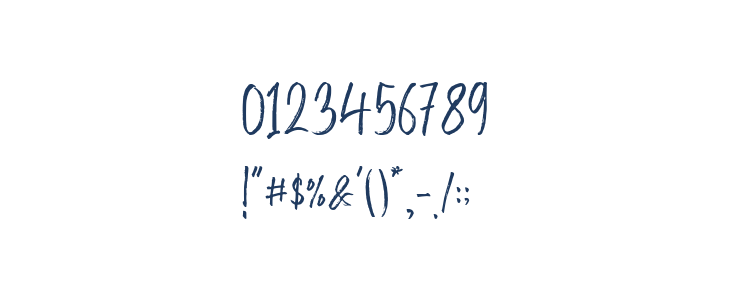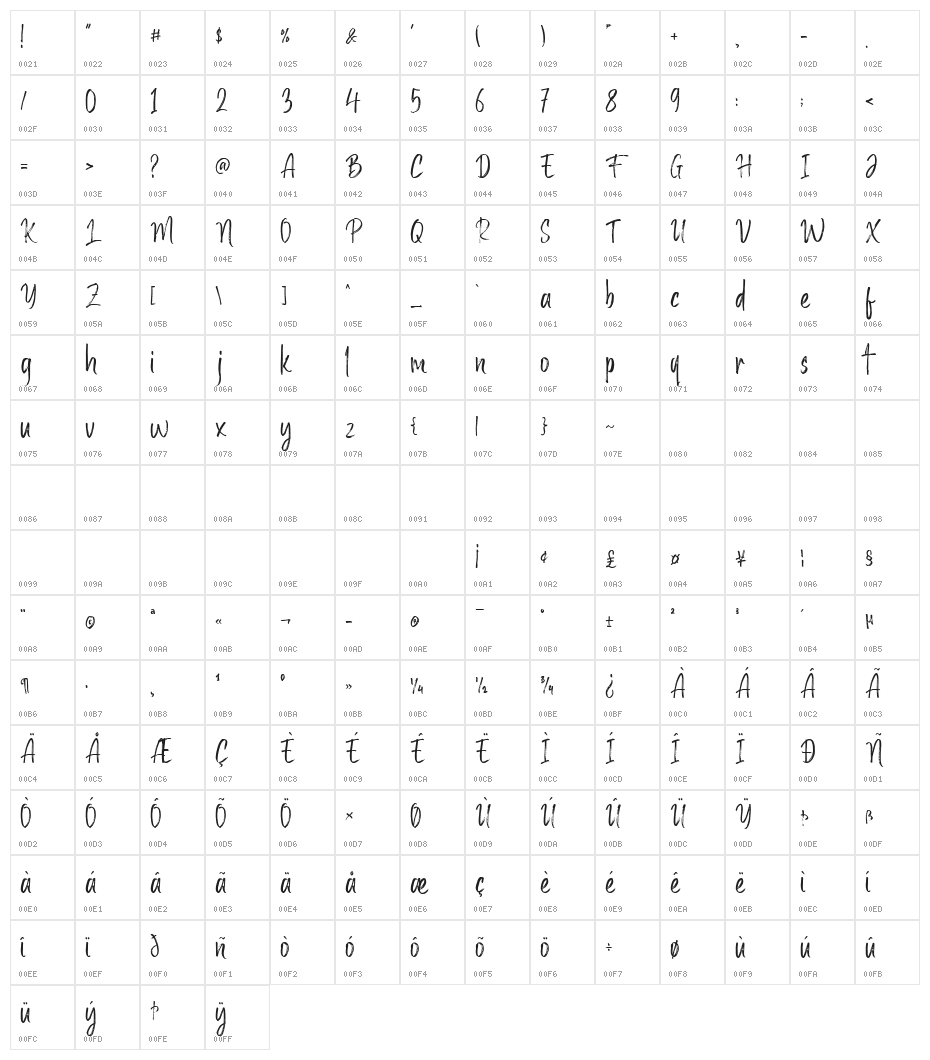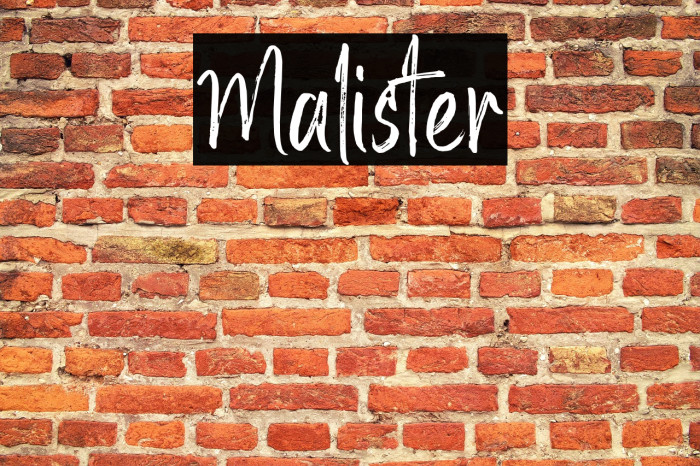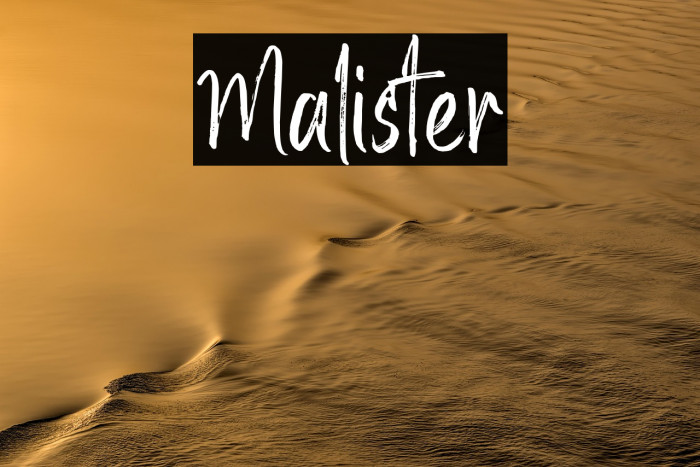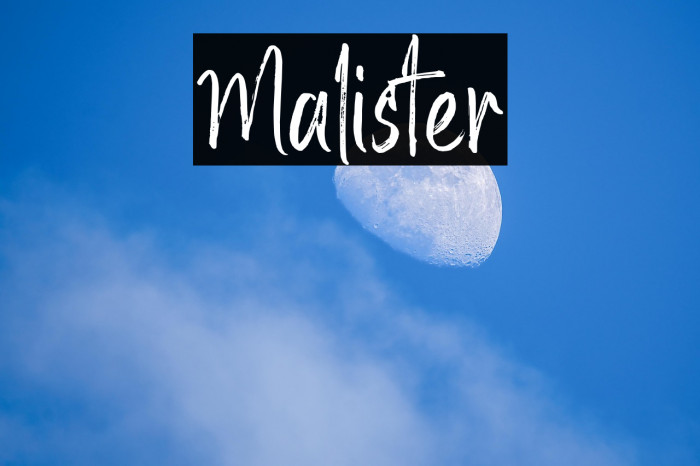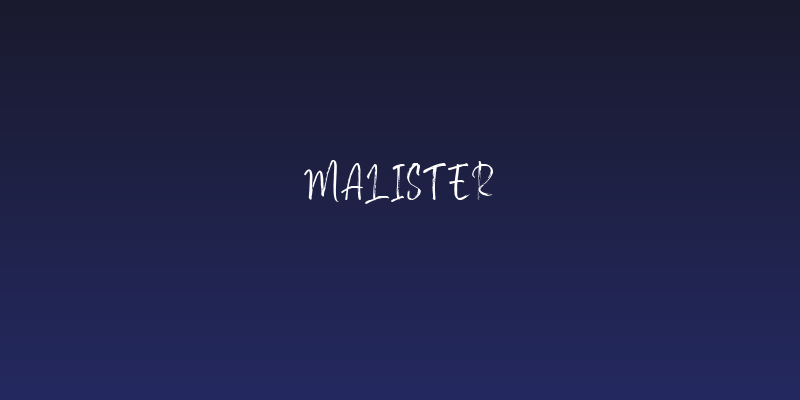
Malister Font
Malister Description
This font features a dynamic and expressive style, characterized by its brush-like strokes and fluid forms. The uppercase letters exhibit a bold and artistic flair, with varying stroke widths that create a sense of movement and energy. The lowercase letters maintain a cohesive flow, complementing the uppercase with their elegant curves and subtle connections. Numbers and special characters are crafted with the same attention to detail, ensuring consistency across all elements. The overall appearance is both modern and artistic, making it suitable for creative and eye-catching designs.
| Overall Style | Modern, Artistic |
| Use Case | Logos, Headlines, Invitations |
| Proposed Projects | Ideal for branding, logos, invitations, and artistic projects that require a bold and creative touch. |